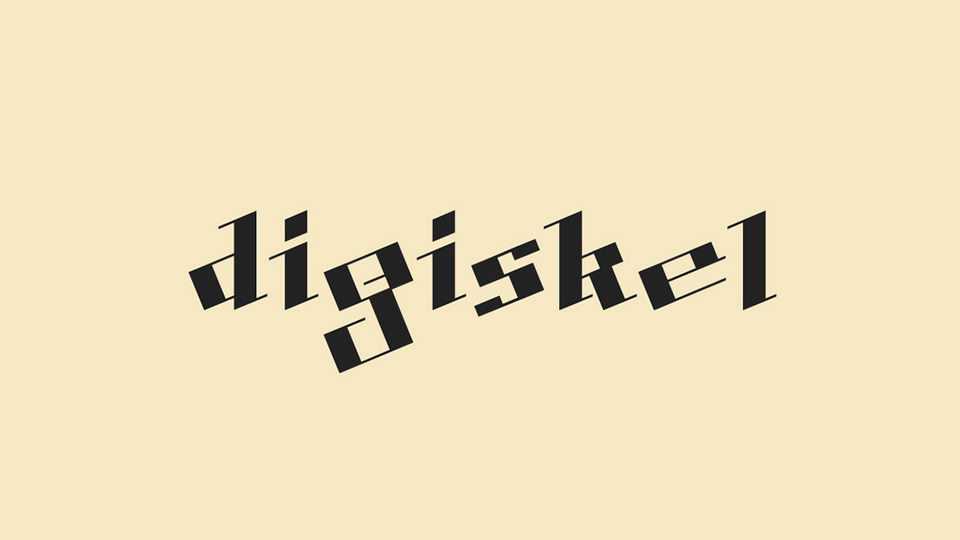
Download Digiskel font, a modern karolingische minuskel like typeface. Digiskel font was inspired by early middle age books and perfectly fits for contemporary artworks.
Designer: Ilya Zakharov